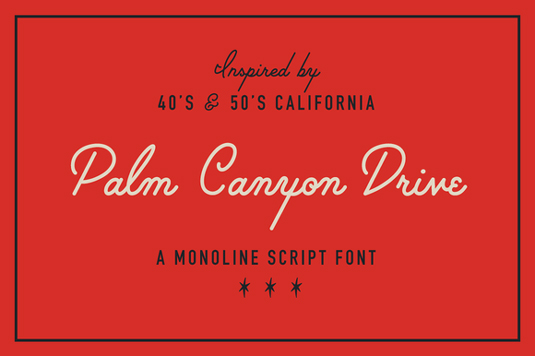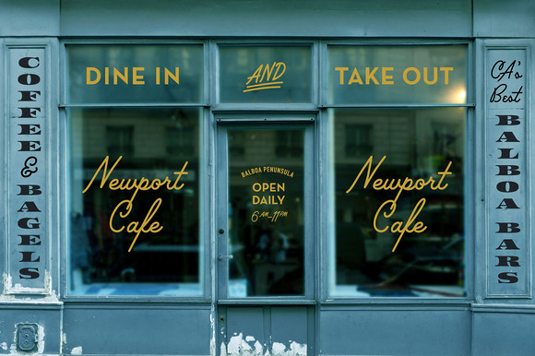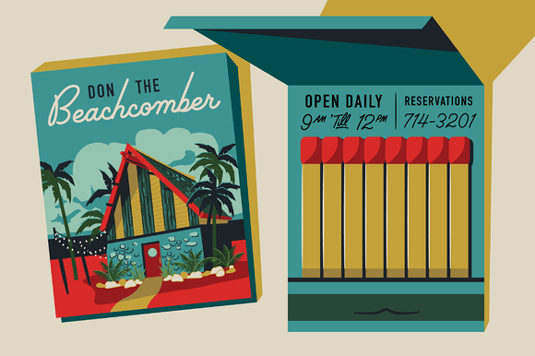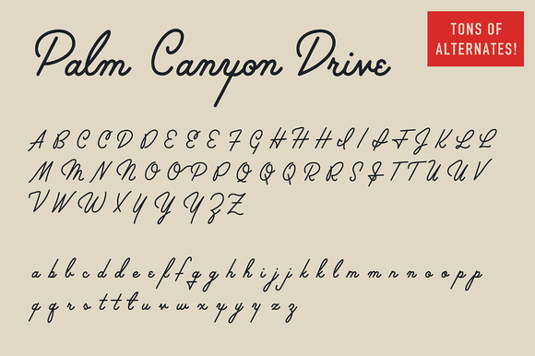
Font of the day: Palm Canyon Drive
Palm Canyon Drive by Dustin Lee
A monoline script, inspired by '40s and '50s California, Palm Canyon Drive was created by designer Dustin Lee. "Mid-century California was a magical place," Lee comments. "Post-war optimism fueled the popularity of everything from Hollywood to roadside diners.
"Palm Canyon Drive is a monoline script, inspired by retro matchbook covers, travel postcards, Tikki bars and Hollywood. With a classy yet unpretentious tone Palm Canyon Drive is as comfortable on a Tikki bar matchbook cover as it is on a Hollywood movie poster."